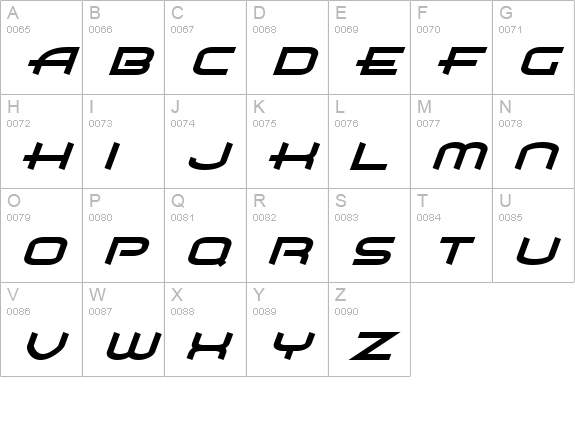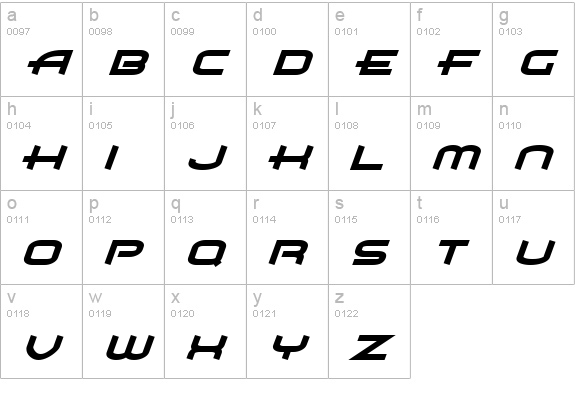
Air Flow BTN Hv Oblique Font Details
Air Flow BTN Hv Oblique is a distinctive, italic variant in the Air typeface family \xE2\x80\x94 well suited to design and typography projects.
Air Flow BTN Hv Oblique font is a bold and dynamic typeface that exudes a sense of modernity and sophistication. With its slanted style and heavy weight, this font is perfect for making a bold statement in your designs. The sleek lines and sharp angles of Air Flow BTN Hv Oblique give it a unique and eye-catching appearance that is sure to capture attention. What's even better is that this font is available for free download at FontsMarket.com. So, whether you're looking to add a touch of flair to your project or make a strong visual impact, Air Flow BTN Hv Oblique is the perfect choice. Download it now and let your creativity soar with this stylish and versatile font.